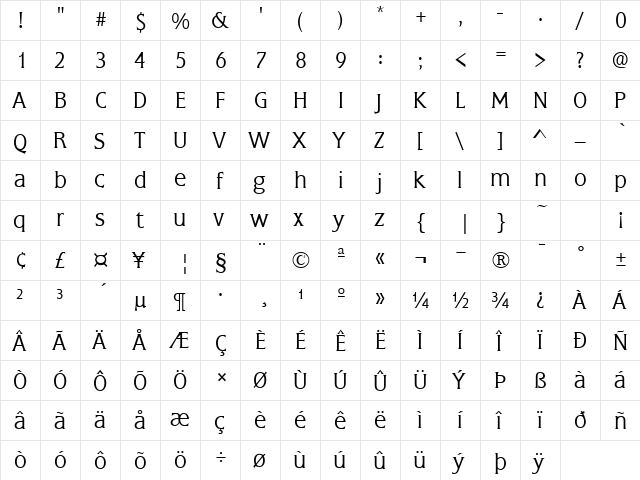
Flatus Regular
Design Context for Flatus Typeface
Flatus is a composed and adaptable typeface that performs quietly and consistently across a wide range of design contexts.